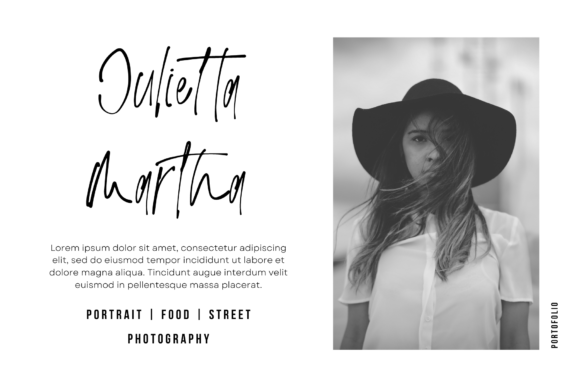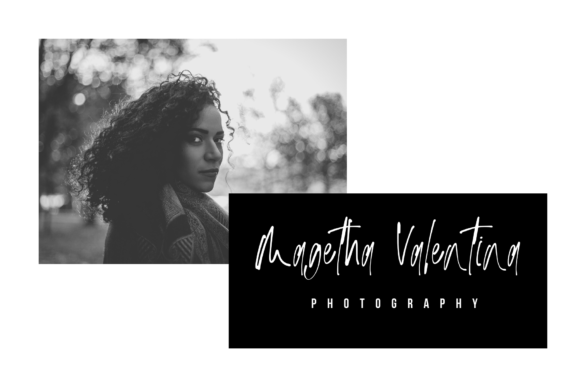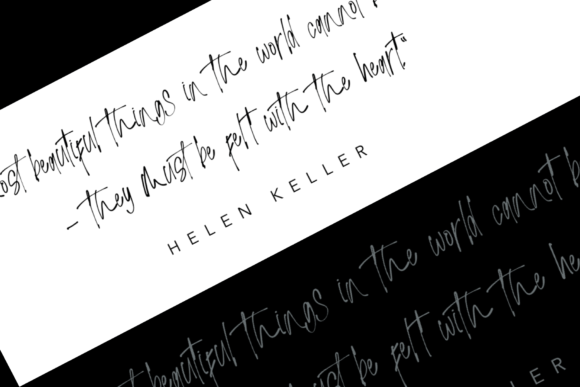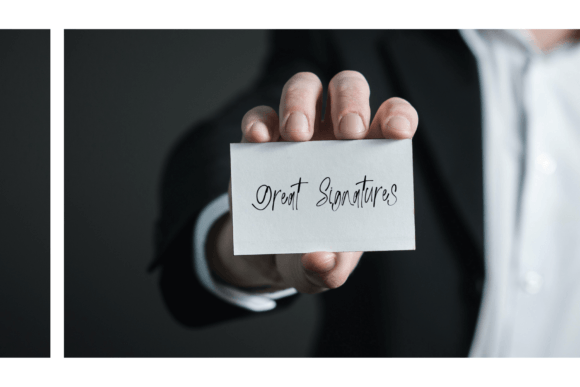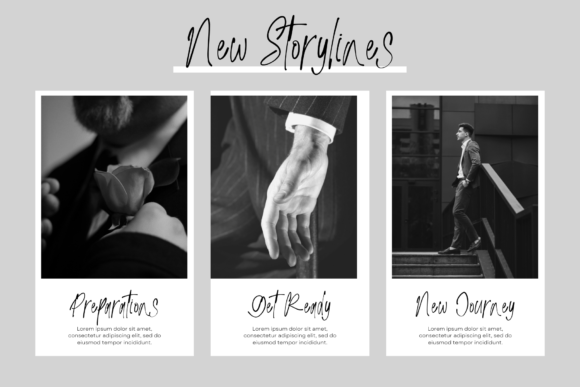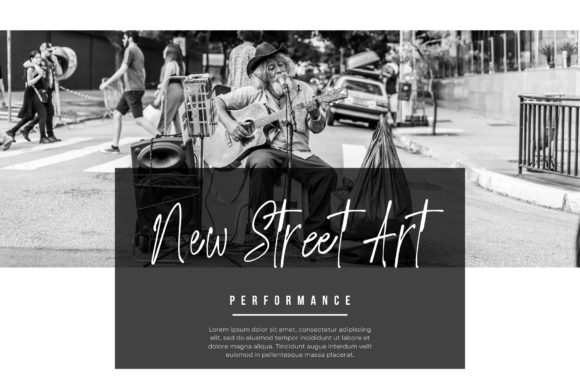
Introducing Boomink Font: Elevate Your Designs with Elegance
In the world of typography, fonts play a crucial role in conveying messages, expressing emotions, and creating visual identities. For designers and crafters looking for a touch of elegance and sophistication, the Boomink Font is an exceptional choice. This stunning, thin-lettered, and graceful monoline script font is designed to captivate audiences with its ravishing style, making it perfect for a wide range of creative projects.
What Makes Boomink Font Stand Out?
Boomink Font boasts a unique, monoline script style that exudes elegance and refinement. Its thin letters and graceful strokes make it an ideal choice for creating gorgeous signs, headings, and eye-catching social media posts. Whether you’re working on a branding project, crafting beautiful quotes, or designing engaging content for social media, Boomink Font is sure to make your work stand out.
Key Features of Boomink Font
- PUA Encoded: Boomink Font is PUA (Private Use Area) encoded, which means you can access all glyphs and swashes with ease. This feature allows for greater flexibility and creativity in your designs, enabling you to experiment with various typographic elements.
- Monoline Script Style: The font’s monoline script style gives it a sleek, modern look that’s perfect for designs that require a touch of sophistication.
- Thin-Lettered and Graceful: The thin letters and graceful strokes of Boomink Font make it an excellent choice for creating elegant and refined designs.
Use Cases for Boomink Font
Boomink Font’s versatility makes it suitable for a wide range of creative projects, including:
- Signs and Headings: Create stunning signs and headings for events, businesses, or personal projects with Boomink Font’s elegant and refined style.
- Social Media Posts: Elevate your social media game with eye-catching posts that showcase your creativity and style.
- Branding and Identity: Use Boomink Font to create a unique and memorable visual identity for your brand or business.
- Quotes and Typography: Craft beautiful quotes and typographic designs that showcase your creativity and style.
Tips for Working with Boomink Font
To get the most out of Boomink Font, consider the following tips:
- Experiment with Swashes: Take advantage of Boomink Font’s PUA encoding to experiment with various swashes and glyphs, adding a personal touch to your designs.
- Play with Colors: Boomink Font looks stunning in a variety of colors, so don’t be afraid to experiment and find the perfect hue for your design.
- Mix and Match: Combine Boomink Font with other typography elements to create visually appealing and engaging designs.
Boomink Font is a stunning, thin-lettered, and graceful monoline script font that’s sure to elevate your designs with its ravishing style. With its PUA encoding, monoline script style, and elegant strokes, this font is perfect for creating gorgeous signs, headings, and eye-catching social media posts. Whether you’re a designer or crafter, Boomink Font is an exceptional choice for anyone looking to add a touch of elegance and sophistication to their creative projects.